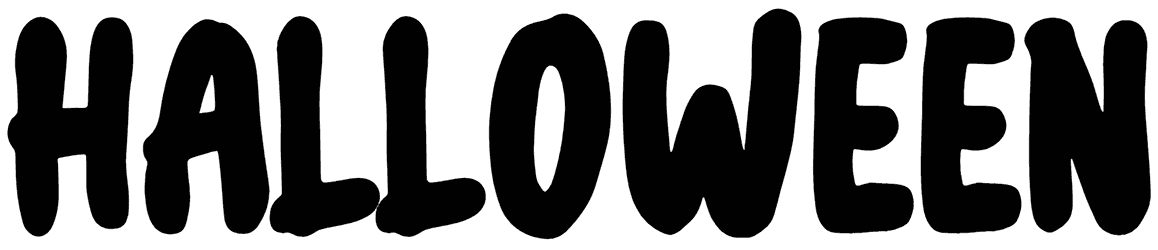
Halloween Font
The creative and dramatic holiday font is in stock for those who dreamed of being a professional designer. Halloween, within multiple styles, moves closer to compensating for the lack of lowercase letters and brings more variety and flexibility to win over the others.
With dazzling tones, this Halloween font can be honored by everyone to make use of its imaginative style in many posters, covers, ads, and anything that needs to retain its artistic spirit.